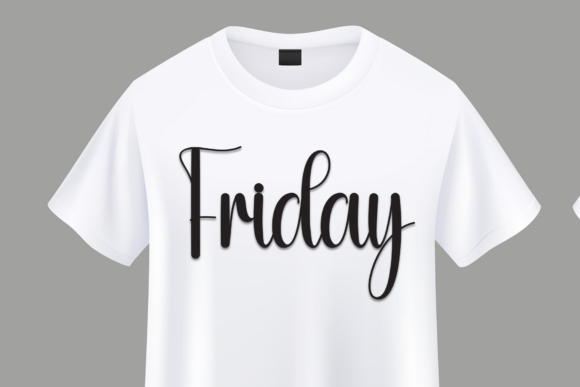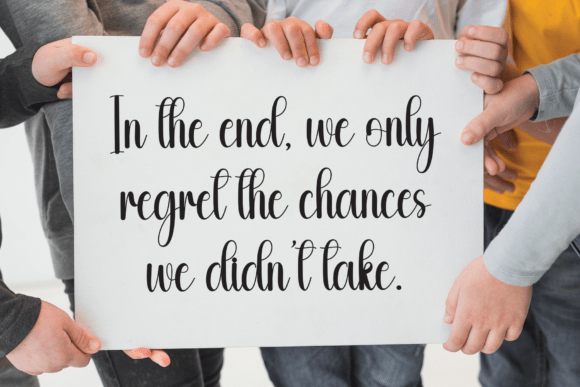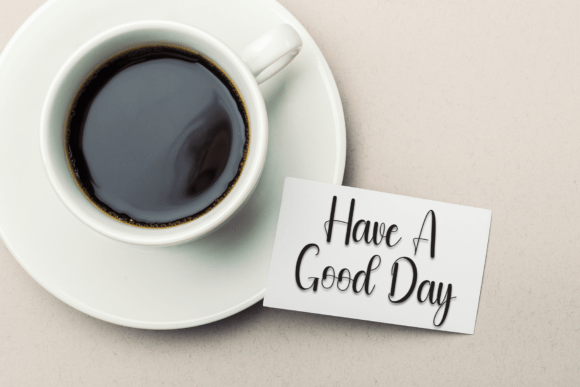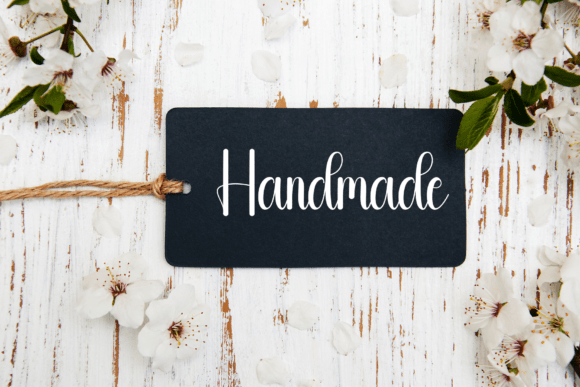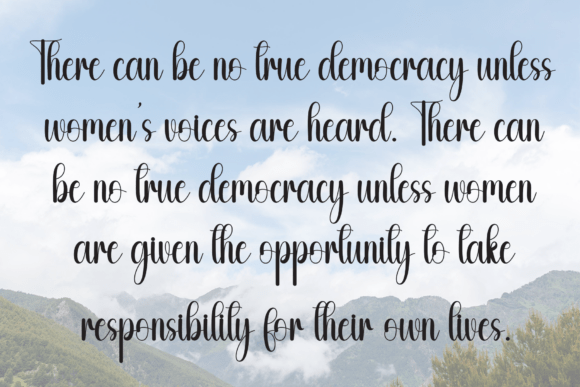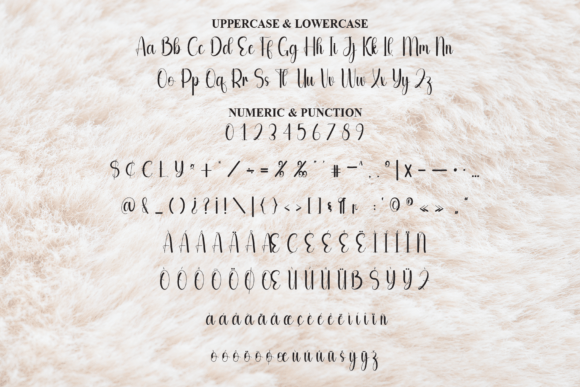
The Perfect Stroke: Unlocking the Magic of Bulky Font
Have you ever been stuck on a design project, searching for that perfect font to bring your vision to life? You know, that elusive combination of elegance and playfulness that sets your project apart from the rest? For me, it was the moment I stumbled upon Bulky Font – a stylish handwritten script font that captured my heart with its flowing curves and natural rhythm.
Bulky Font is more than just a font; it’s a tool for designers to add a personal, charming touch to their projects. Whether it’s an invitation, branding, or social media design, Bulky Font brings warmth, sophistication, and creativity to the table. Its unique design makes it a valuable asset for designers looking to elevate their work and stand out in a crowded industry.
Bulky Font Key Features
- Unique Character Set: Includes over 1,000 glyphs, including accented characters, ligatures, and special symbols for enhanced typographic versatility
Bulky Font Review
I have to say, I was a bit skeptical about Bulky Font at first, but after playing around with it, I found some aspects that I really liked. ✨ The font is perfect for headings and titles because it adds a nice, bold touch. It’s also great for making text stand out in a busy design. ✨ The font is highly customizable, so you can adjust the size, color, and even the spacing to fit your design needs. ✨
However, I did encounter some limitations while using Bulky Font. ⚠️ For one, it can be a bit overwhelming if used too extensively. It’s best to use it sparingly to avoid visual overload. ⚠️ Additionally, the font may not be suitable for body text, as it can be difficult to read due to its bulky nature. ⚠️
Overall, I think Bulky Font is a great addition to any designer’s toolkit. While it has its limitations, it’s perfect for making a statement or adding a touch of elegance to your design. With a little creativity and restraint, you can achieve some amazing results with this font.
Bulky Font is commonly used in:
- Headlines and titles
- Product packaging and branding
- Advertising and marketing materials
- Graphic design and visual identity